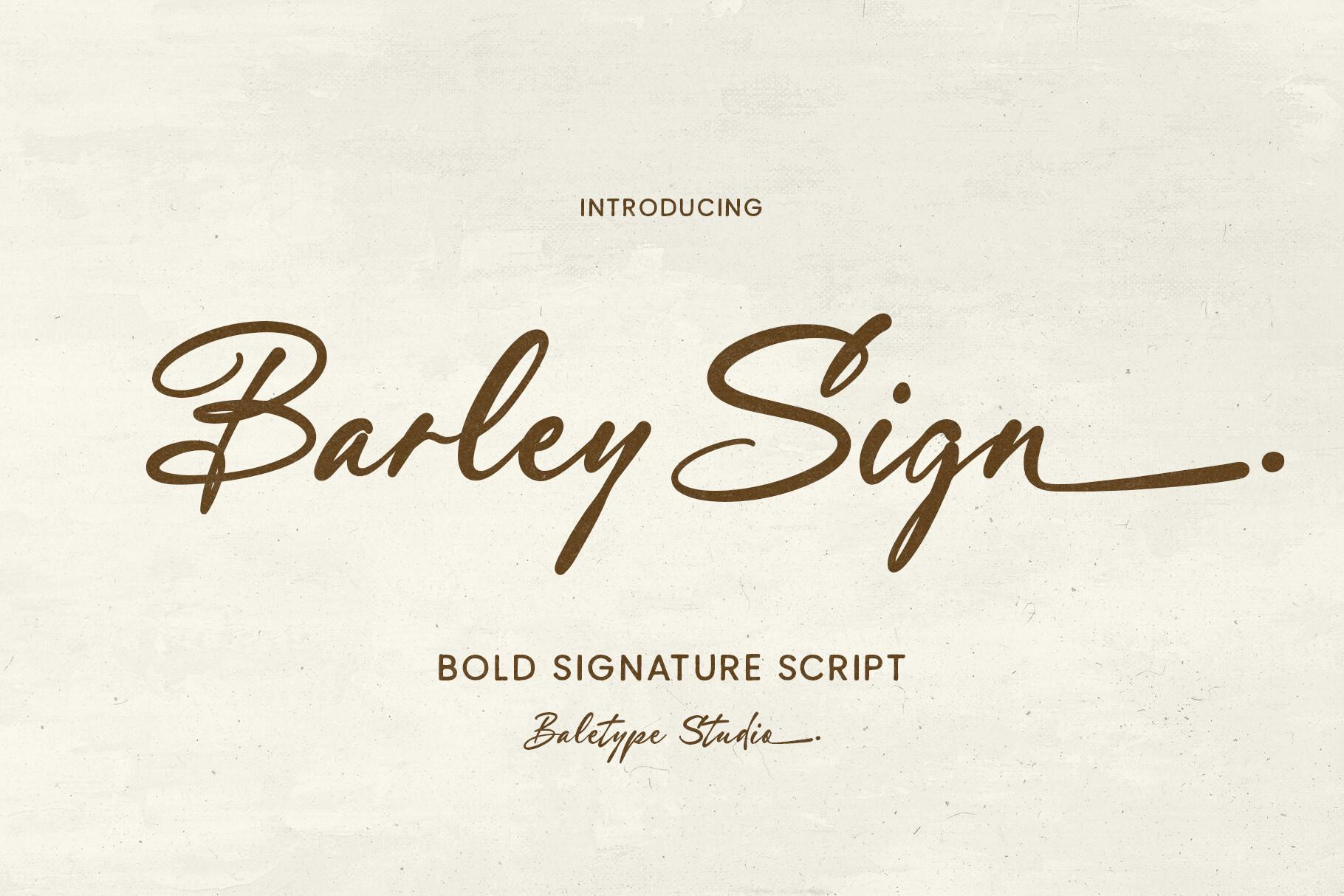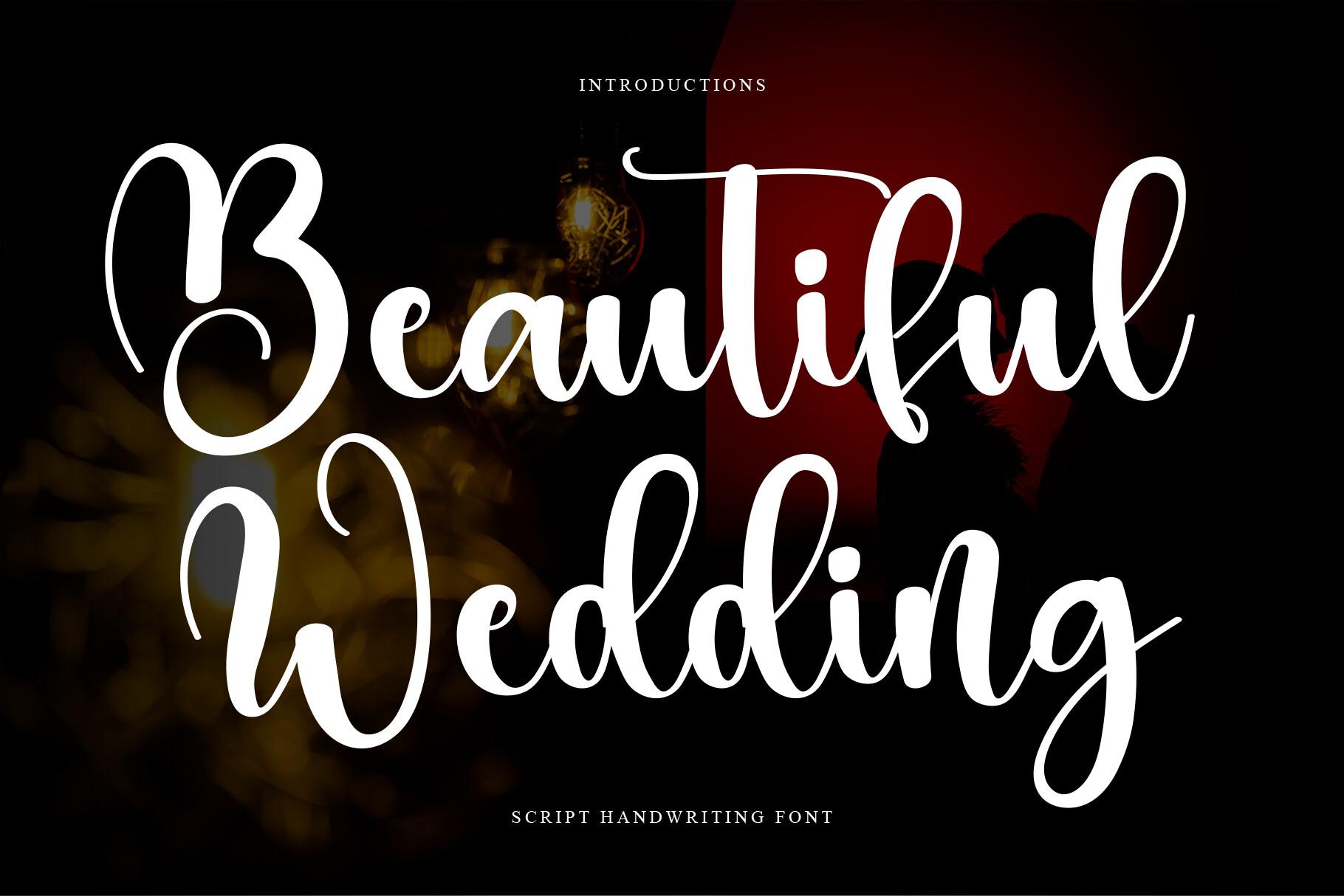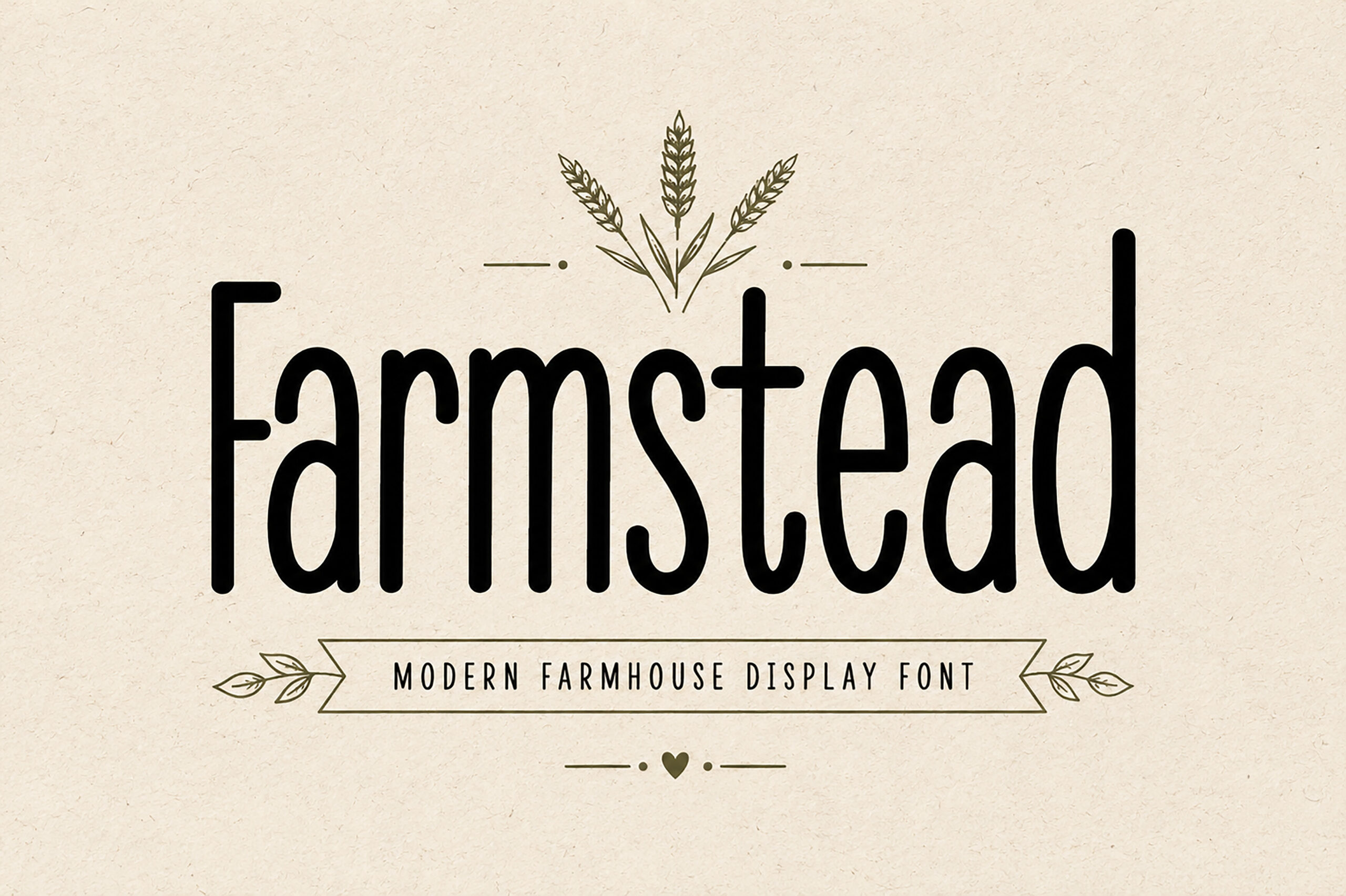
27 Wedding Fonts for DIY Couples and Stationery Makers: Script, Serif and Sign Fonts for Invitations and Cricut Projects
Wedding fonts have more jobs than most people expect. The same wedding needs a romantic script for the names, a clear serif for the date and venue, and a bold, readable font for the welcome sign that guests see from across the room. This list covers all three.
Every font here was picked from Creative Fabrica and is shown with its own preview. They are grouped into wedding sign fonts, wedding script fonts and wedding serif fonts, with notes on where each one works and where it doesn’t.
Wedding Sign Fonts
Welcome signs, seating charts, bar menus and table numbers are read from a few steps away, often in candlelight. These fonts are bold and clear enough for that job, and most of them cut cleanly on Cricut vinyl. Two monogram fonts at the end add the couple’s initials to the top of any sign.
1. Rustic Wedding Font
by andikastudio
Best For: welcome signs, rustic wedding decor, barn weddings
Rustic Wedding Font is a bold, high-contrast script with big looping capitals. The preview writes the name in black over a soft photo of dried grasses, with the R and W curling far past the other letters. The author describes a stylish handwritten script that mixes elegance and playfulness.
The heavy strokes stay readable from across the room, which is exactly what a welcome sign needs. Use the big capitals for the couple’s names and a simple serif for the date.
2. Beautiful Wedding Font
by Bintang Studio
Best For: chalkboard signs, dark wedding signage, bar menus
Beautiful Wedding Font is a thick, rounded script with generous loops. The preview writes it in white on a dark, candle-lit photo, labelled as a script handwriting font.
White script on a dark board is one of the most common wedding sign styles, and this font was clearly drawn for it. It works well on chalkboards, black acrylic signs and bar menus.
3. Whimsical Wedding Font
by BitongType
Best For: garden weddings, Cricut signs, cake toppers
Whimsical Wedding Font is a bouncy, curly cursive with a hand-drawn feel. The preview sets the name in dark green under a string of lights, labelled as a curly cursive font. The author notes that PUA encoding is included, so the extra characters are easy to reach.
The playful bounce suits garden and backyard weddings. The medium, even stroke also makes it a good choice for vinyl cut signs and cake toppers.
4. Wedding Handwritten Font
by Letter Muray
Best For: seating charts, labels, casual wedding signs
Wedding Handwritten Font is a duo: tall, thin print capitals and a flowing script. The preview mixes both, with pink capitals and dark script words laid over each other, labelled as a cute handwritten font duo. The author mentions swashes and PUA encoding.
Having a print and a script in one font makes seating charts easy: script for the table name, print capitals for the guest names. It also works for favor labels and casual signs.
5. Farmstead Font
by Bundle
Best For: seating charts, table numbers, farmhouse signs
Farmstead Font is a tall, condensed display font with a farmhouse feel. The preview writes “Farmstead” in black on kraft paper under a wheat sprig, labelled as a modern farmhouse display font. The author mentions numbers and multilingual support.
Narrow capitals fit long names on a seating chart and stay clear at small sizes. The numbers make it a natural pick for table numbers and timeline signs.
6. Barley Sign Font
by baletype